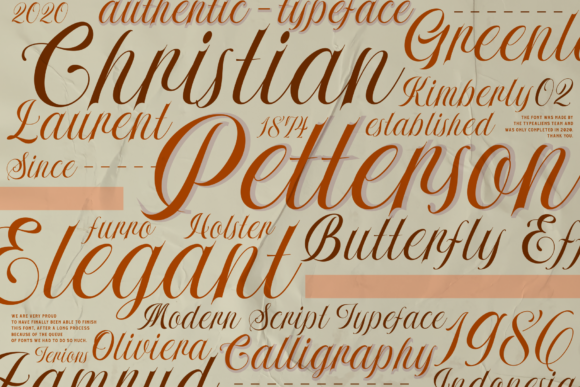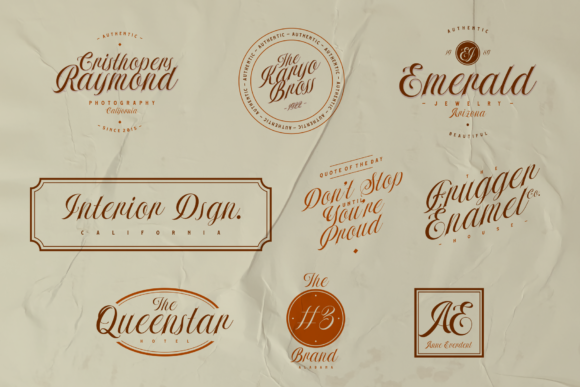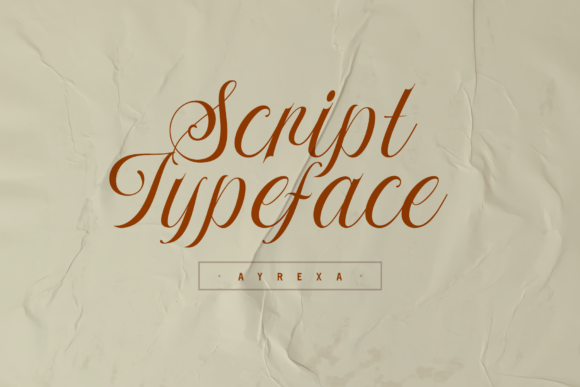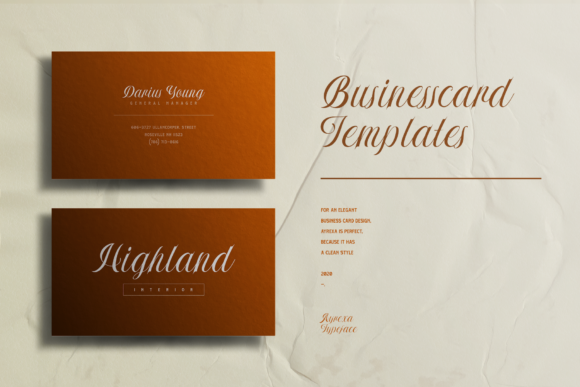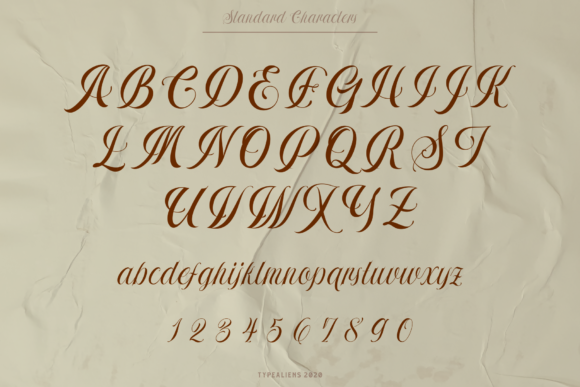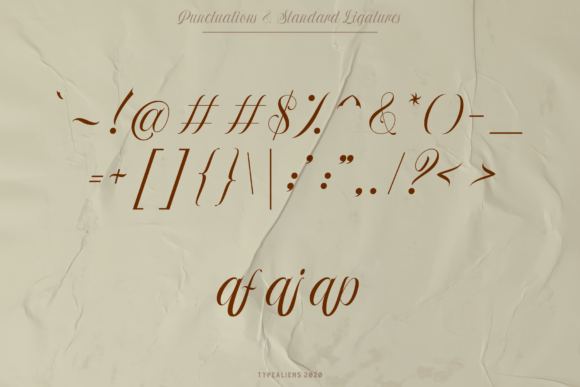
The Ayrexa Font: A Beautiful Script for Sophisticated Designs
Ayrexa: A Beautiful Script Font
Ayrexa is a stunning script font that exudes elegance and sophistication. Its gorgeous ligatures make it perfect for wedding invitations, luxury branding, and any project that requires a high-end look. The font’s flowing curves and beautiful swashes will add a touch of class to any design.
- ✨ Gorgeous ligatures and swashes that add a touch of elegance to any design
- ✅ Perfect for wedding invitations, luxury branding, and high-end projects
- 💫 Highly legible, even at small sizes
- 🎨 Versatile and can be used for a variety of design projects
- 🤔 Some users may find the font a bit too ornate for certain projects
- ⚠️ Limited use for body text, as it’s best suited for headings and titles
The Story Behind Ayrexa
Ayrexa was designed by a talented font designer who wanted to create a beautiful script font that would add a touch of elegance to any design. The designer drew inspiration from classic calligraphy and modern typography to create a unique and sophisticated font.
| Font Name | Ayrexa Font |
| Author | typealiens |
| What is Ayrexa font best used for? | Ayrexa font is best used for wedding invitations, luxury branding, and high-end projects that require a sophisticated look. |
| Does Ayrexa support OpenType features? | Yes, Ayrexa supports OpenType features, including ligatures, swashes, and stylistic alternates. |